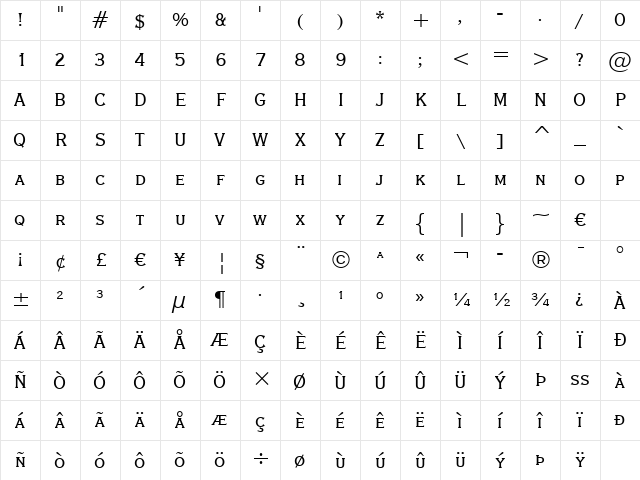
CopprplGoth Cn BT Regular
Design Context for CopprplGoth Cn BT
CopprplGoth Cn BT is a composed and adaptable typeface that performs quietly and consistently across a wide range of design contexts.
Pro Tip: Use CopprplGoth Cn BT in both headline and body roles to test its range before committing to a single application.